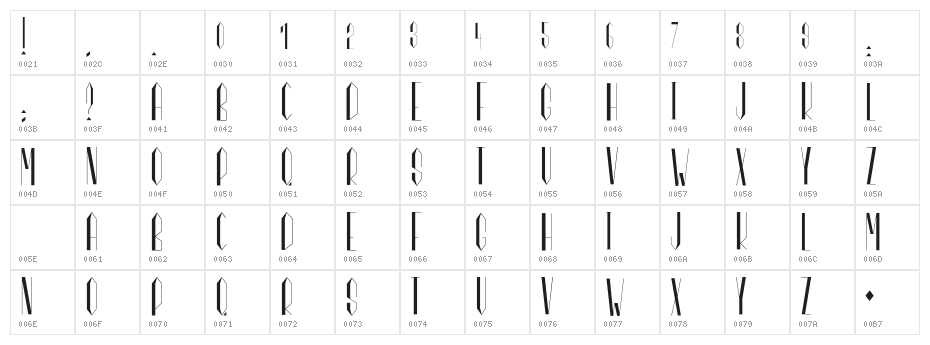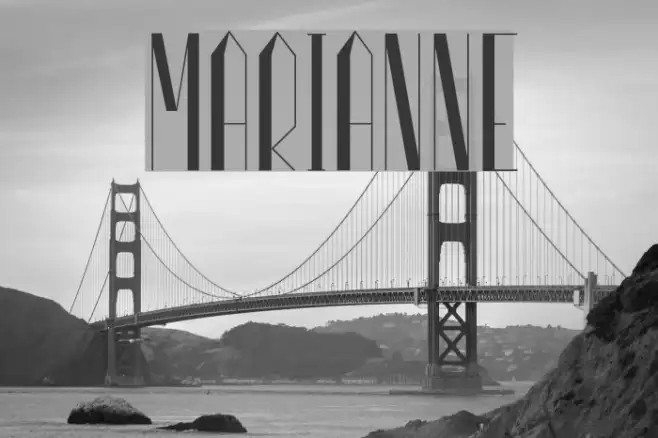
Marianne Font
Marianne Description
This font features a striking, geometric design with tall, narrow characters that create a bold visual impact. The uppercase letters are particularly elongated, with sharp angles and clean lines that give a modern, architectural feel. The lowercase letters maintain this geometric style, offering a cohesive look across the alphabet. Numbers are similarly styled, ensuring consistency throughout. The special characters are designed to match the overall aesthetic, making this font suitable for various creative applications. Its unique style is both eye-catching and versatile, ideal for projects that require a strong visual statement.